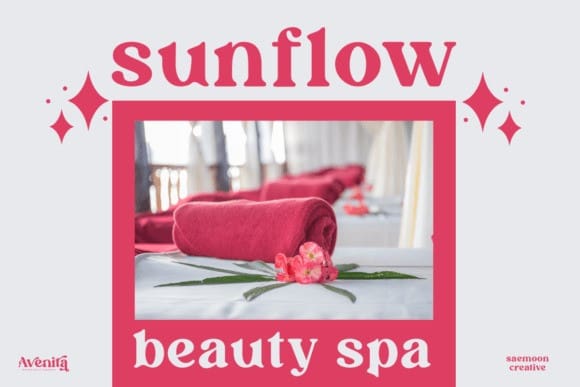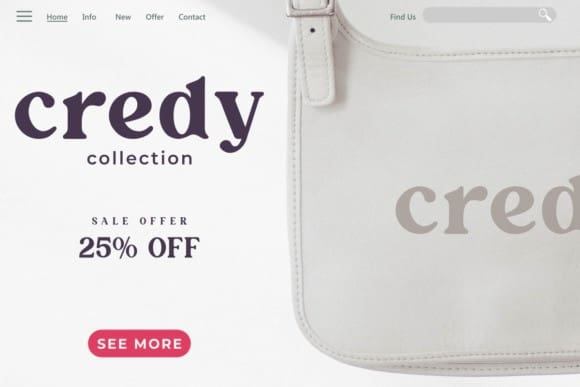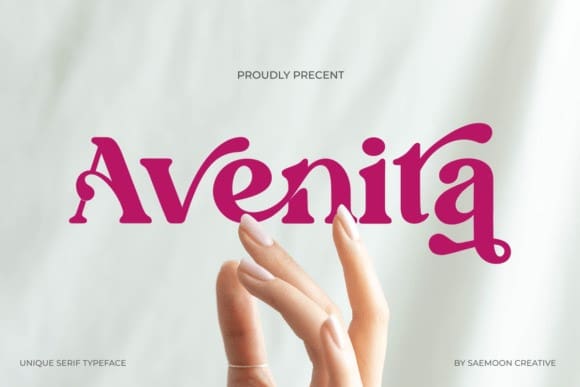
Avenita Font
Avenita Font is an elegant and unique serif font, equipped with ligature and alternate options. It showcases distinctive characteristics in each letter, allowing it to enhance your design projects with a touch of uniqueness and elegance. Whether for web design, logo design, clothing branding, product packaging, social media, or stylish text overlays on any background, Avenita brings a sense of sophistication.